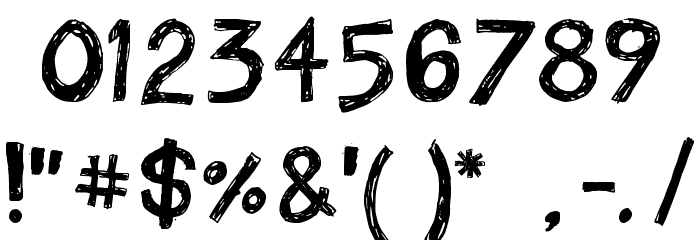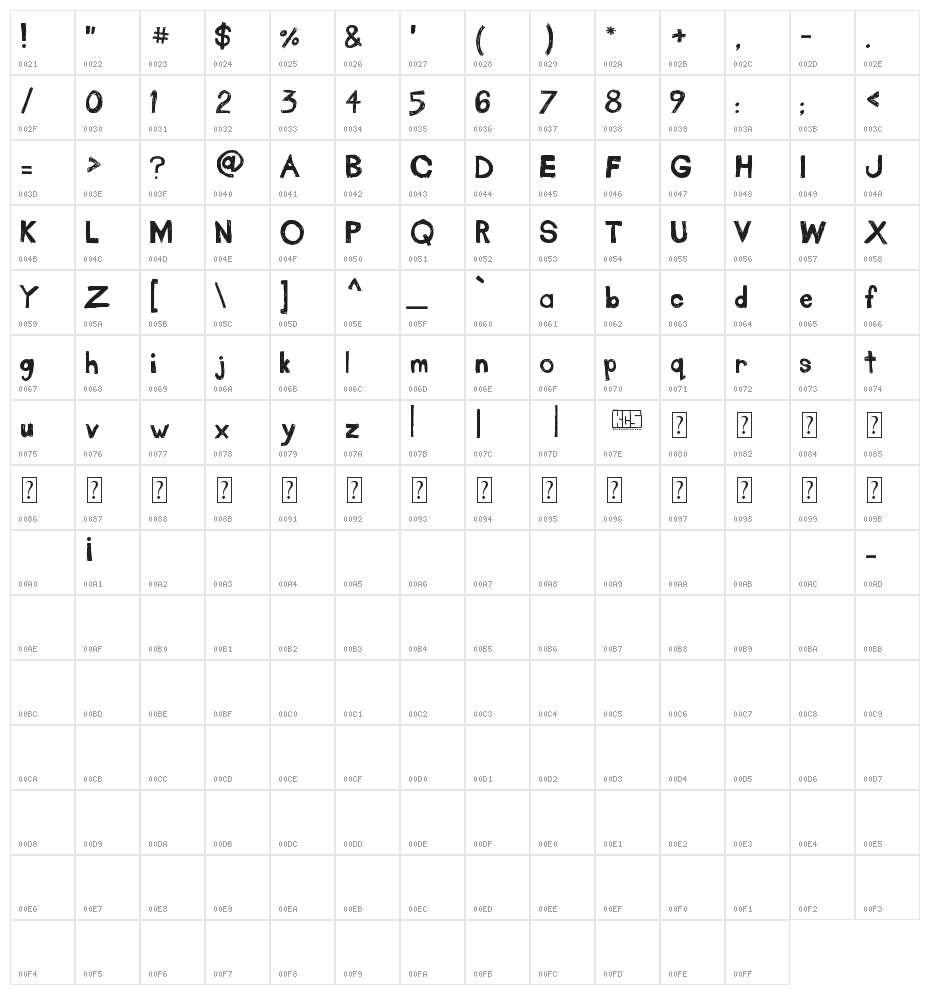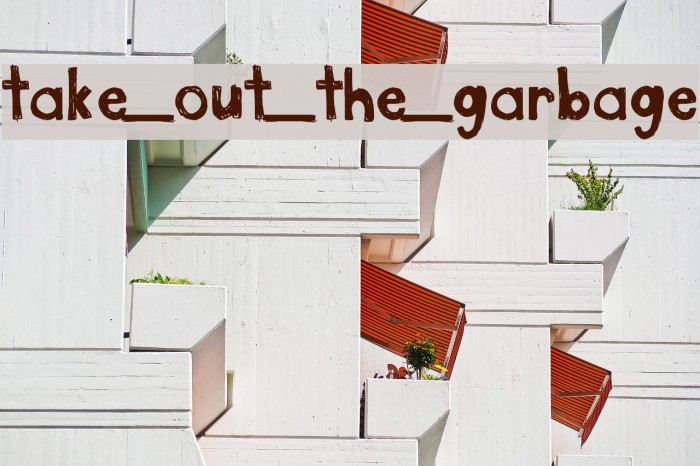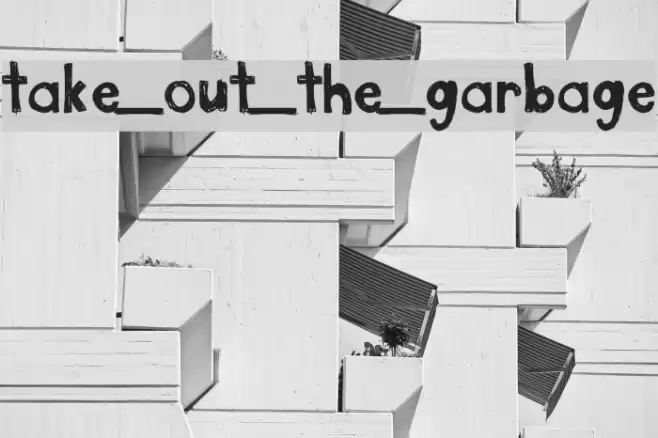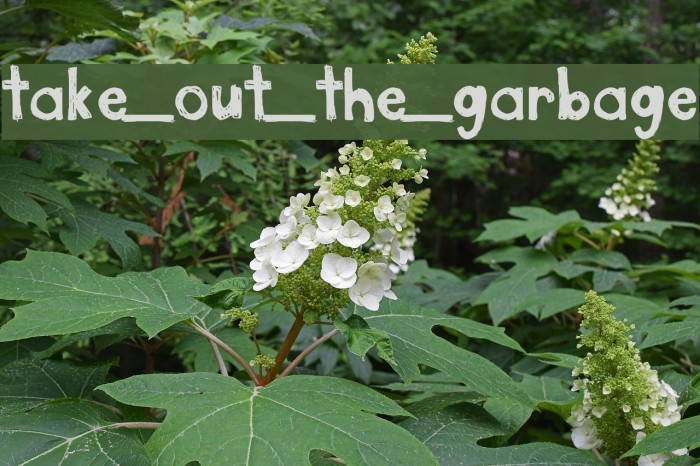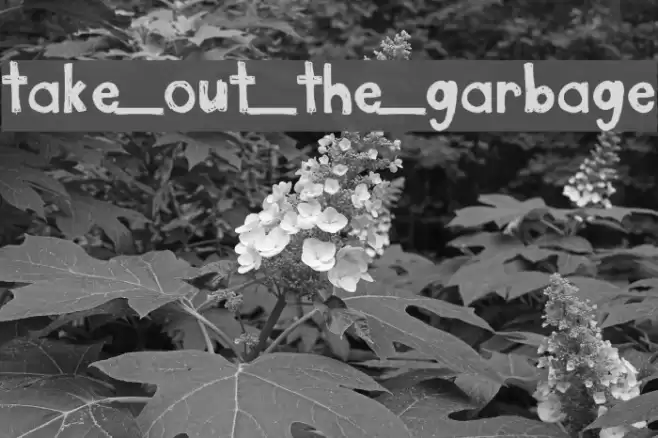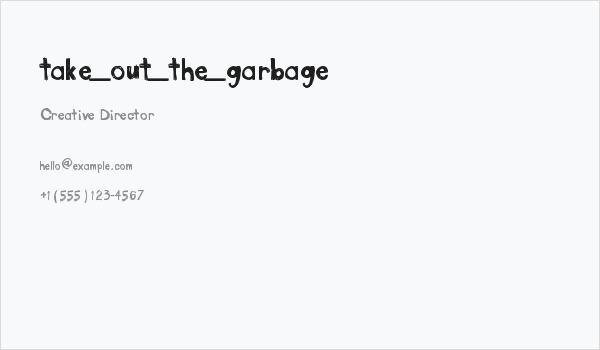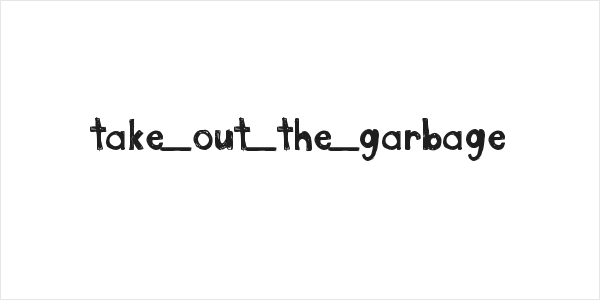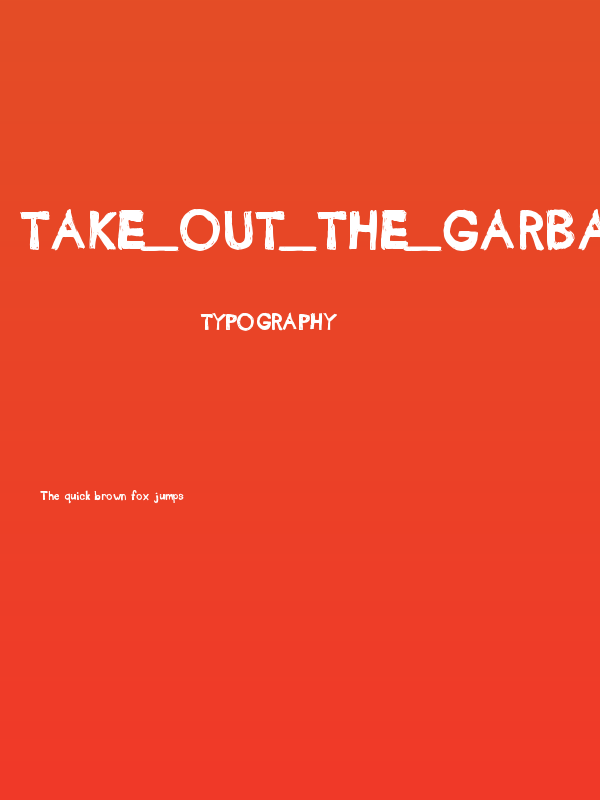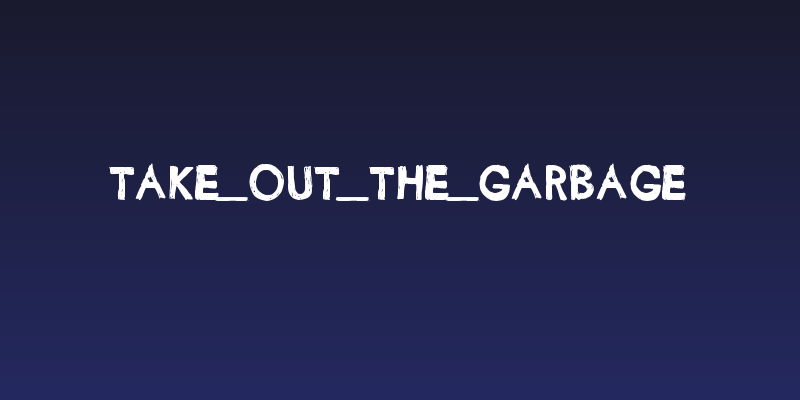
take_out_the_garbage Font
take_out_the_garbage Description
This font features a playful and slightly chaotic style, characterized by its uneven strokes and hand-drawn appearance. The letters have a rough texture, giving them a distressed and informal look. The uppercase and lowercase letters maintain a consistent style, with a quirky and artistic flair. The numerals and special characters follow the same design, ensuring a cohesive appearance across all glyphs. This font exudes a casual and creative vibe, making it suitable for projects that require a touch of personality and uniqueness.
| Proposed Projects | Ideal for children's books, creative posters, casual branding, and artistic projects. |